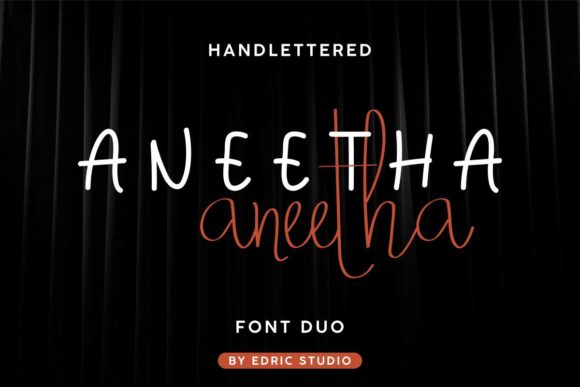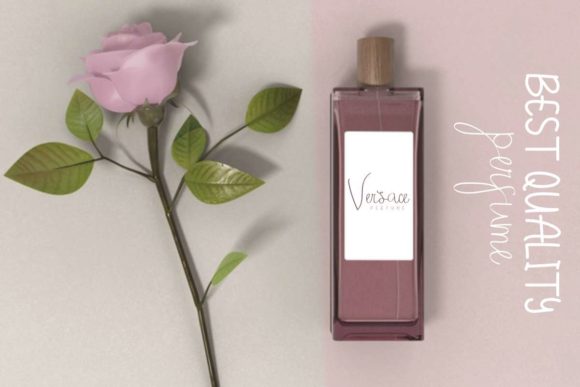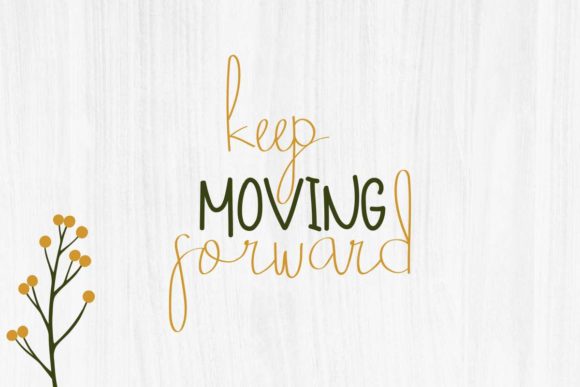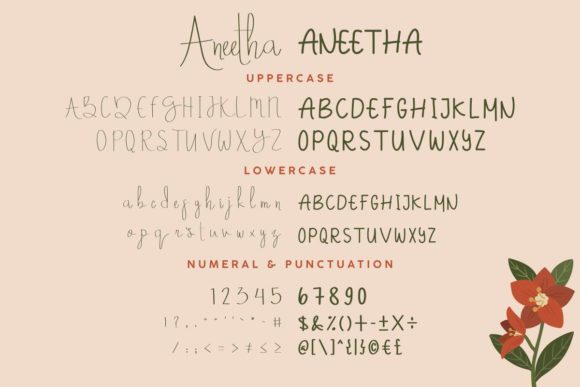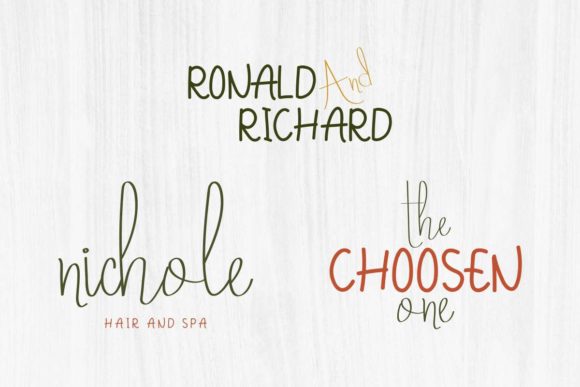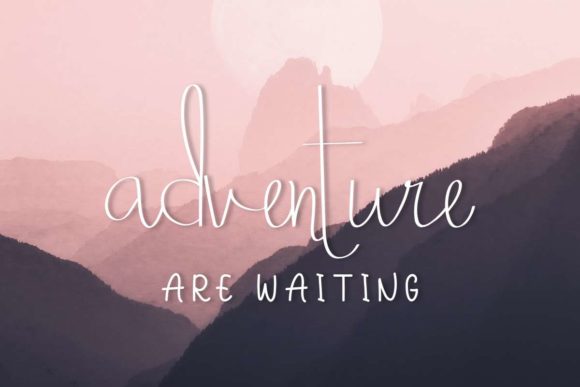
The Perfect Pair: Unleashing the Beauty of Aneetha Font
Have you ever been stuck on a design project, searching for the perfect combination of fonts to make your vision come alive? We’ve all been there – scrolling through font libraries, trying to find that elusive match made in heaven. But what if you could skip the endless search and have the perfect pairing right at your fingertips? Enter Aneetha Font, a stunning duo consisting of a sans and script font that’s sure to elevate your designs.
Aneetha Font is designed to bring out the best in your creative work, whether you’re a graphic designer, writer, or artist. This gorgeous font duo is perfect for projects that require a touch of elegance and sophistication, from wedding invitations to luxury brand logos. By combining the clean lines of the sans font with the flowing curves of the script font, Aneetha Font offers a unique and versatile solution for designers seeking to add a personal touch to their work.
Aneetha Font Key Features
- Font Family: Aneetha Font is a sans-serif font family designed for modern and minimalist designs.
- Character Set: Supports a wide range of languages, including Latin, Cyrillic, and Devanagari scripts.
- Unique Characteristics: Features a clean, geometric design with subtle rounded edges, making it suitable for titles, headings, and body text in various contexts.
Aneetha Font Review
I’ve had the chance to work with the Aneetha font, and here’s my honest take.
- Unique, elegant style that sets it apart from other fonts.
- Beautiful, flowing curves that add a touch of sophistication to any design.
- Supports a wide range of languages, making it a great option for multilingual designs.
- Works well in both digital and print formats.
- Some characters may not render correctly at smaller font sizes.
- Lack of bold and italic styles, which may limit its use in certain contexts.
- May not be suitable for very small or very large text sizes.
The Aneetha font is a beautiful, elegant option that can add a touch of sophistication to any design. While it may have some limitations, its unique style and wide language support make it a great choice for many projects. With a little care and attention to font size, it can be a fantastic addition to any designer’s toolkit.
Aneetha Font is ideal for:
- Any design project that requires a touch of elegance and sophistication.